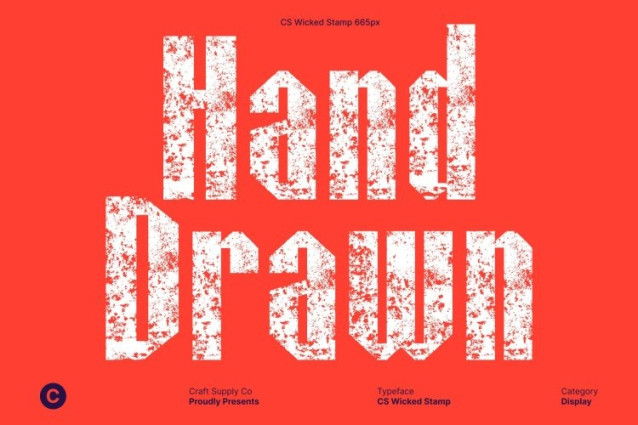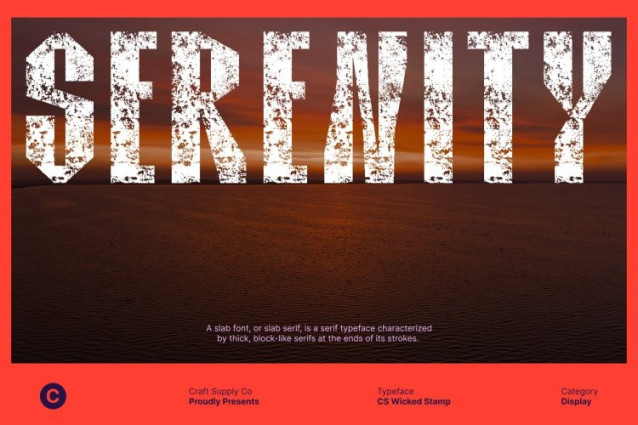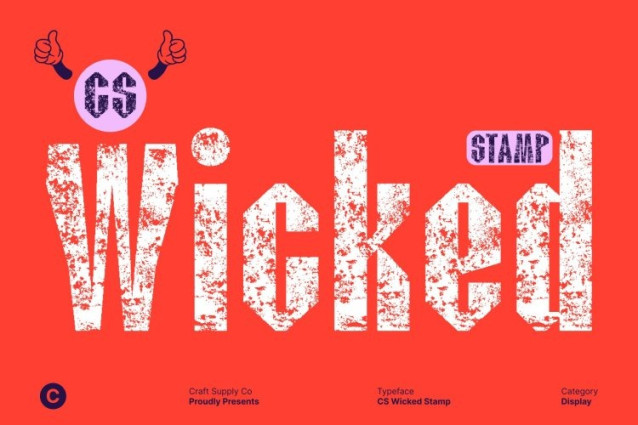
CS Wicked Stamp Font
CS Wicked Stamp Font This is a industrial-style display font crafted to deliver strength, masculinity, and raw visual presence. Designed with thick forms and assertive geometry, it embodies the look of heavy machinery, hard labor, and rugged craftsmanship. Every letter brings a powerful stance, making it ideal for designers who want their typography to speak with authority.
Bold Shapes with Strong Industrial Character
This typeface features robust strokes, angular structures, and solid proportions that reflect classic industrial signage and vintage workshop aesthetics. The bold letterforms create an immediate impact, ensuring your message is loud, clear, and unforgettable. Its tough and gritty personality suits high-energy designs that demand confidence and resilience.
Stamped Texture for Vintage Grit and Authentic Personality
Enhancing its rugged structure is a distinctive stamp effect that adds worn, distressed texture to every character. This handcrafted finish evokes the charm of old factory stamps, heavy-duty equipment labeling, and rough-printed posters.
Ideal for Branding, Packaging, and High-Impact Headlines
This font excels in bold display usage branding for outdoor gear, masculine product packaging, sports themes, event posters, apparel design, and industrial-inspired layouts. Its strong visuals and textured finish make it perfect for projects that require a commanding, attention-grabbing typography style.